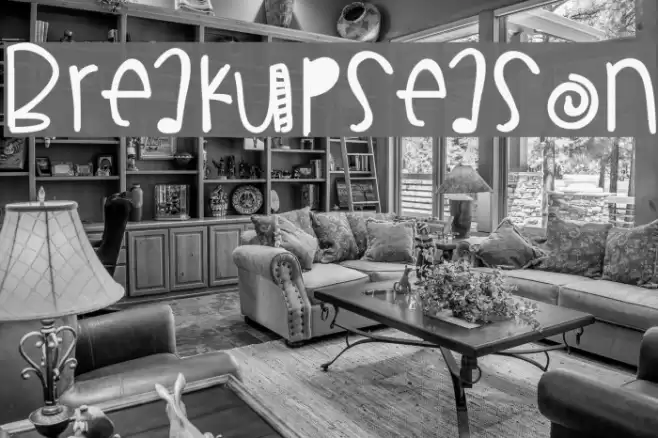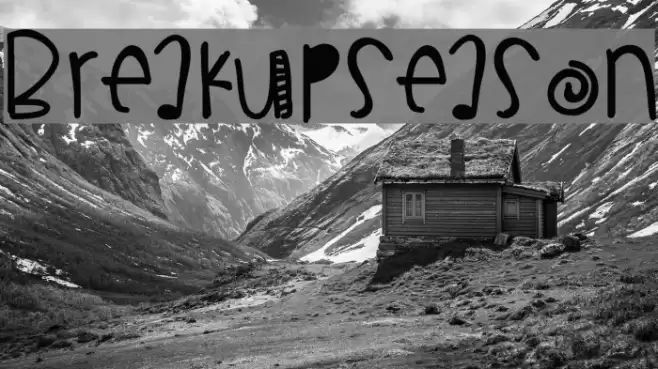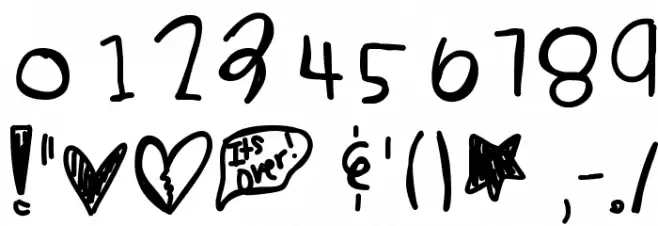
BreakupSeason Font
BreakupSeason Description
This playful and quirky font features a hand-drawn style with a mix of bold and thin strokes, creating a whimsical and informal appearance. The letters are uneven and vary in size, adding to the casual and spontaneous feel. Some characters have unique embellishments, such as spirals or crosshatches, enhancing its decorative nature. The numbers and special characters maintain the same lively and irregular style, making it suitable for creative and fun projects. The font's distinct personality makes it stand out, perfect for designs that require a touch of humor and creativity.
A playful, hand-drawn font with quirky, uneven characters and decorative elements from Cartoon fonts.
- Proposed Projects: Ideal for greeting cards, children's books, playful posters, and casual branding.